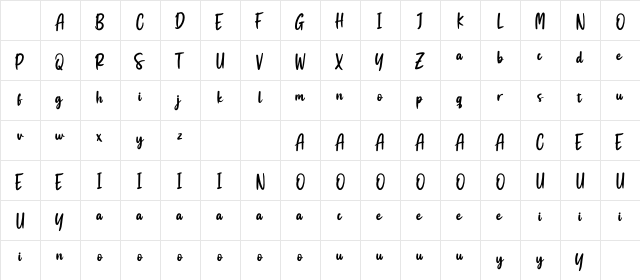
Complete Swingset Personal Use glyph index. Displaying only characters natively supported by Swingset Personal Use font.
Swingset is a composed and adaptable typeface that performs quietly and consistently across a wide range of design contexts.